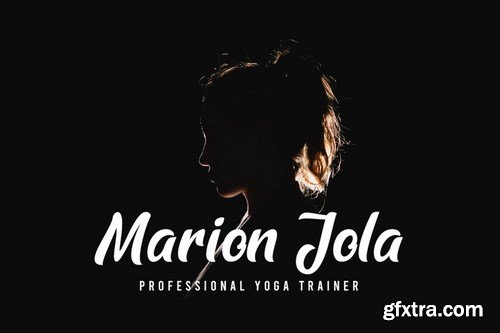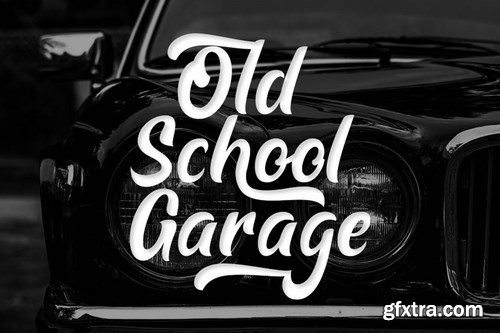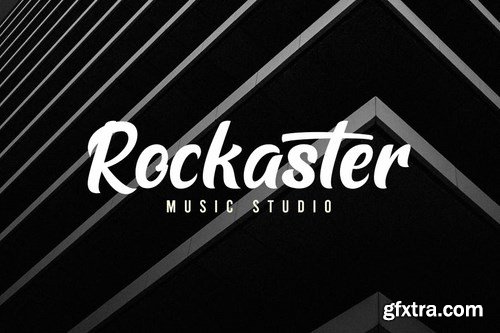
‘Shutle Mind’ is a classic bold script font that has a strong and clean character so that it will give a clean and manly impression. This font can be used in various needs such as logos, posters, business cards, menu designs, quotes, advertisements, packaging, branding, t-shirt designs and others. What’s Included?